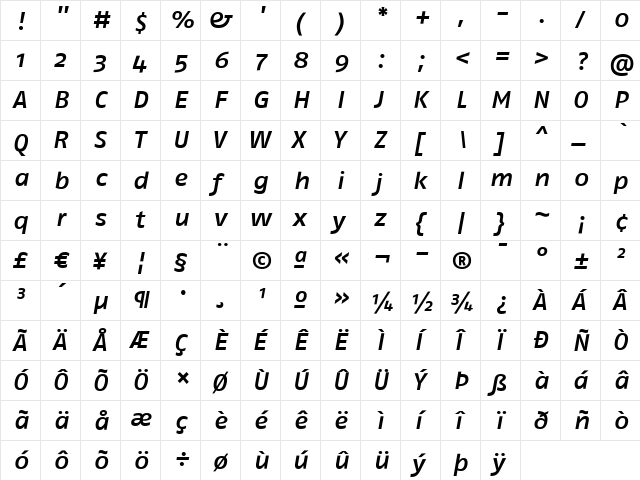
FagoEx ItalicMedium
Design Context for FagoEx Typeface
FagoEx is a composed and adaptable typeface that performs quietly and consistently across a wide range of design contexts. Its italic angle brings a sense of urgency and motion to the letterforms.
Pro Tip: Try FagoEx for annotation and caption copy alongside an upright companion — the contrast in angle creates a dynamic but ordered typographic system.